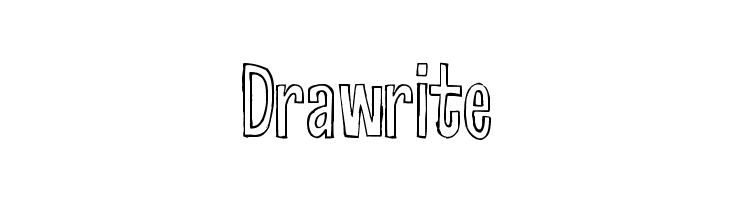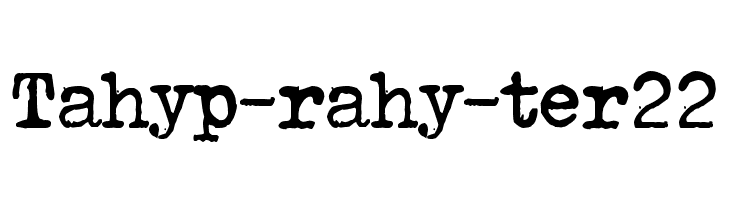
• Lievidence
A chaotic, ransom note-style font with mismatched characters.
• Lievidence Nega
A bold, eclectic font with a ransom note style and grunge texture.
• Tahyp-rahy-ter 22 Dirty Dirty
A distressed, vintage typewriter-style font with a rugged, grunge texture.
• Tahyp-rahy-ter 22 Very Dirty Very dirty
A distressed, grunge-style font with a vintage typewriter aesthetic.
• Tahyp-rahy-ter 22
A vintage, typewriter-style font with a distressed, monospaced look.
• Drawrite
A playful, hand-drawn font with bold, outlined characters.
• Hypothetical moon of Mercury
A bold, distressed font with a grunge texture and high contrast, ideal for impactful designs.
• Objectorange
A bold, modern font with a strong and impactful design.
• Grey+Red
A grunge, hand-drawn font with dynamic, uneven strokes and a distressed appearance.
• Dead end
A bold, distressed font with a vintage, rugged appearance.